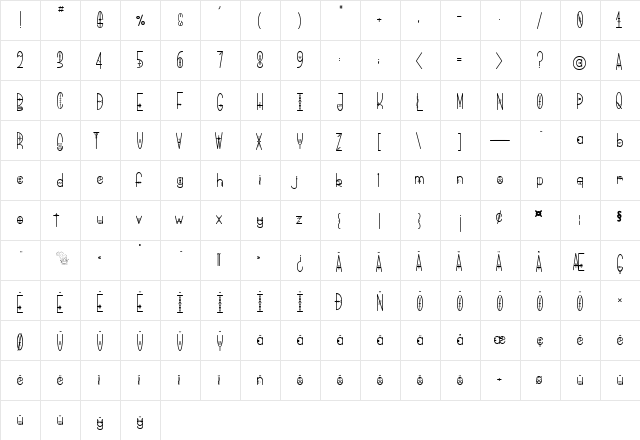
Bring me That Glyph 2 Regular
| Foundry | dcoxy Medina Gregory |
| Designer | dcoxy Medina Gregory |
Design Context for Bring me That Glyph 2 Typeface
Bring me That Glyph 2 offers clean, dependable letterforms without strong stylistic allegiance, making it a practical choice for designers who need flexibility.